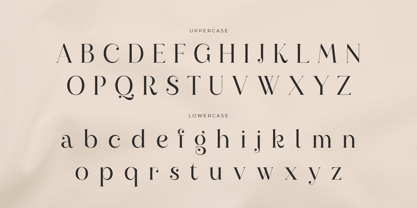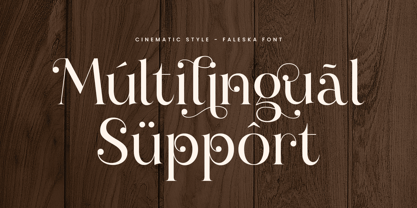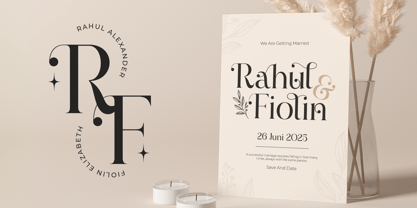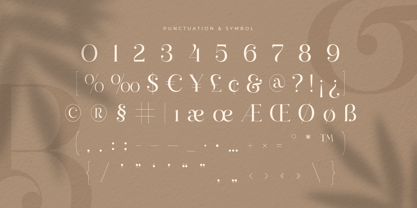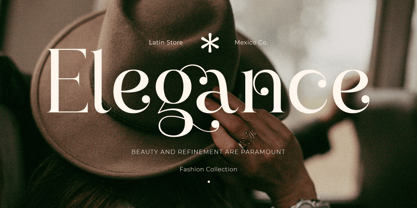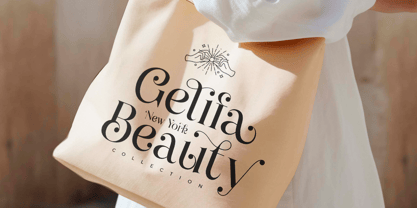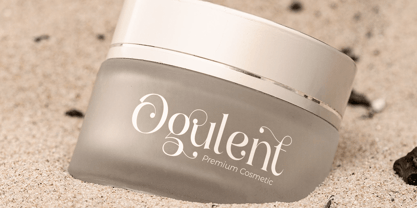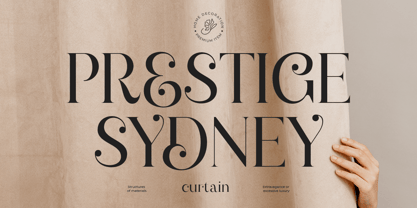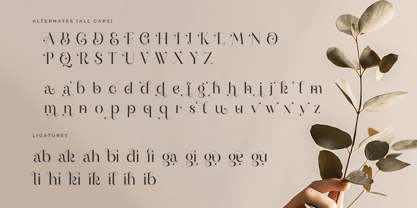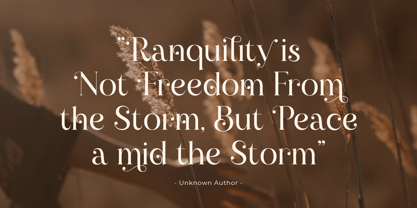
Valeska is a font that embodies cinematic luxury and elegance. With its refined serif structure and sophisticated lines, Valeska is perfect for creating stunning branding, logos, and print materials that stand out. Whether you’re working on a high-end project or need a touch of class, Valeska delivers timeless beauty and exclusivity.
Designed with versatility in mind, Valeska offers a comprehensive set of features to enhance your creativity. The font includes huge alternates and ligatures, punctuation, numbers, symbols, and supports both uppercase and lowercase letters. Its multilingual support ensures your designs can reach a global audience with ease.
Valeska comes in various file formats, making it suitable for any medium. It's OpenType features add an extra layer of functionality, allowing you to create unique and memorable designs effortlessly. Let Valeska transform your projects into masterpieces that captivate and inspire.
Features:
• Huge Alternates & Ligatures Ready
• Punctuation, Number, and Symbol
• Uppercase and Lowercase
• Multilingual Support
• OpenType Features